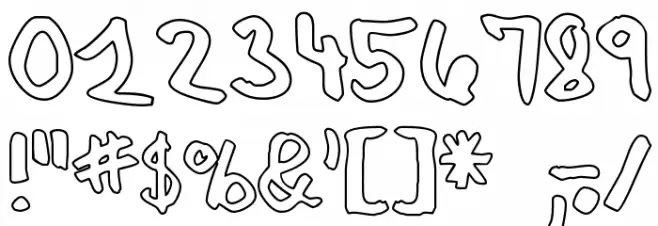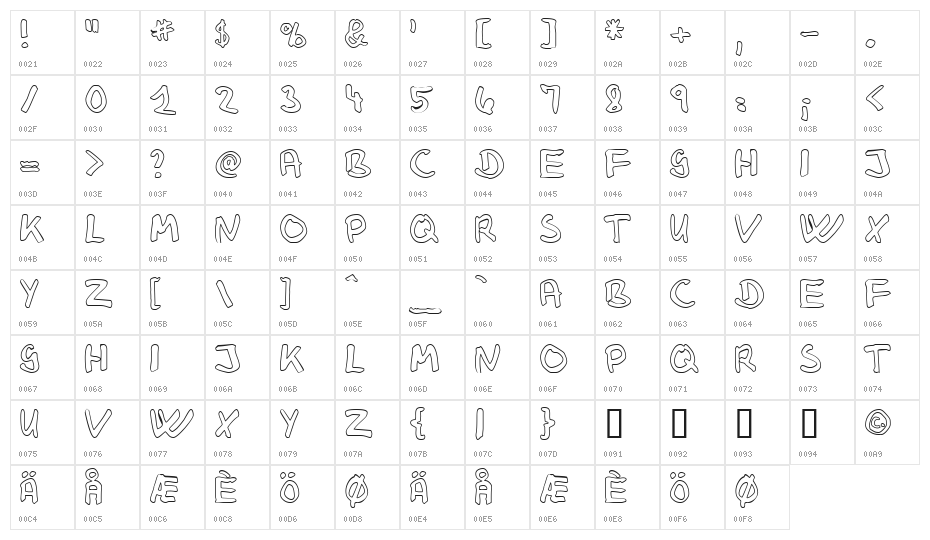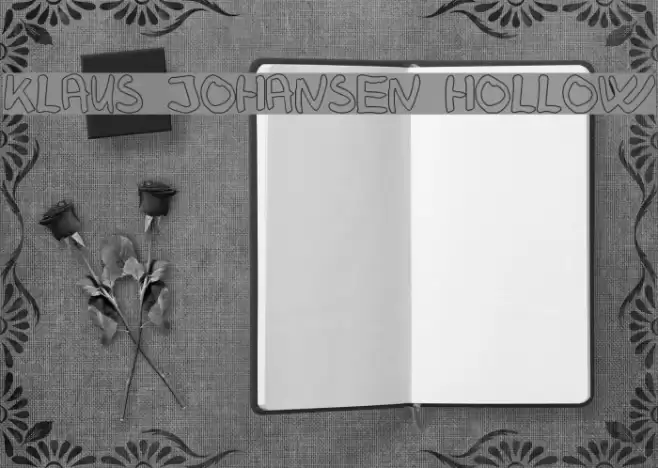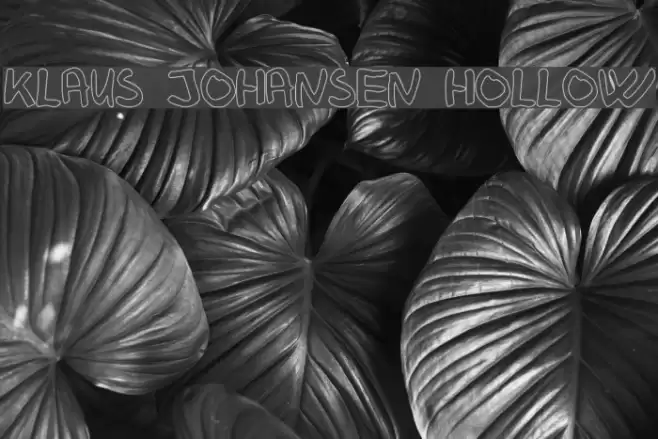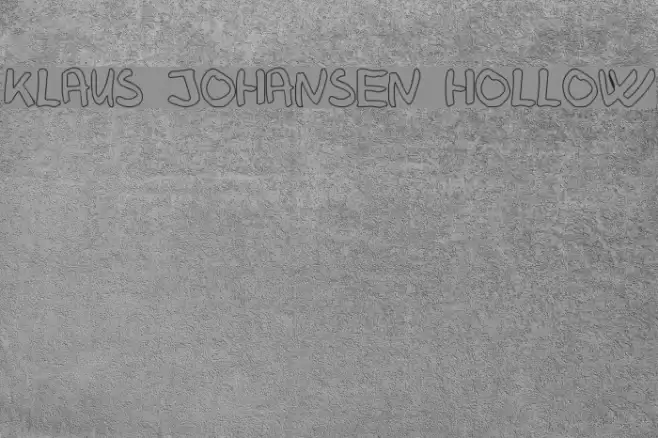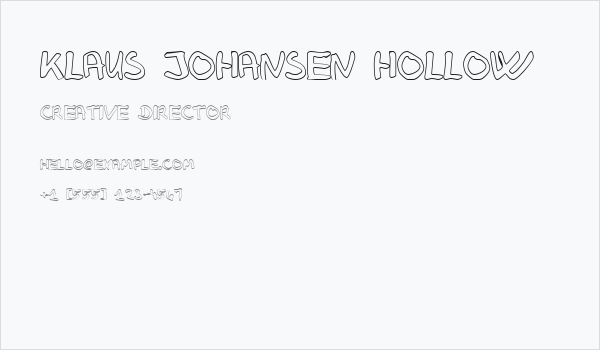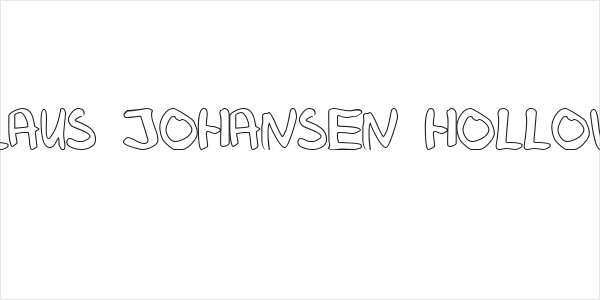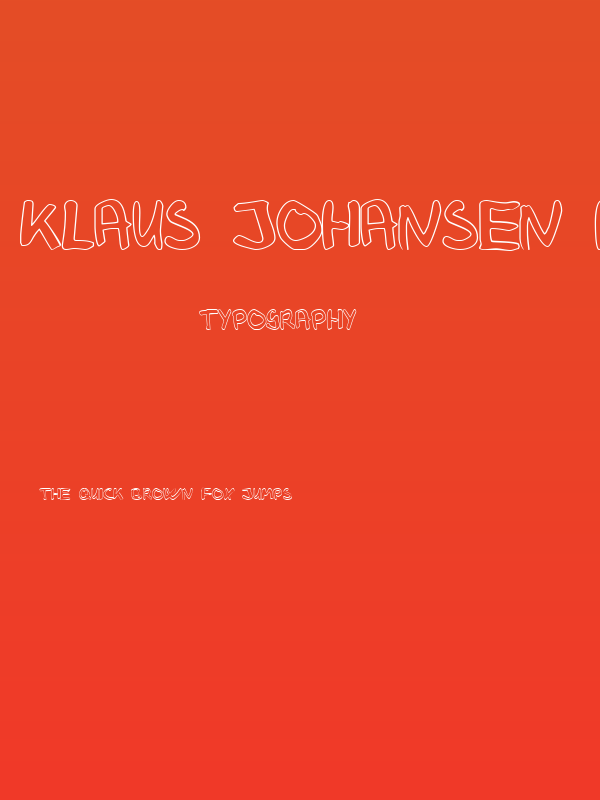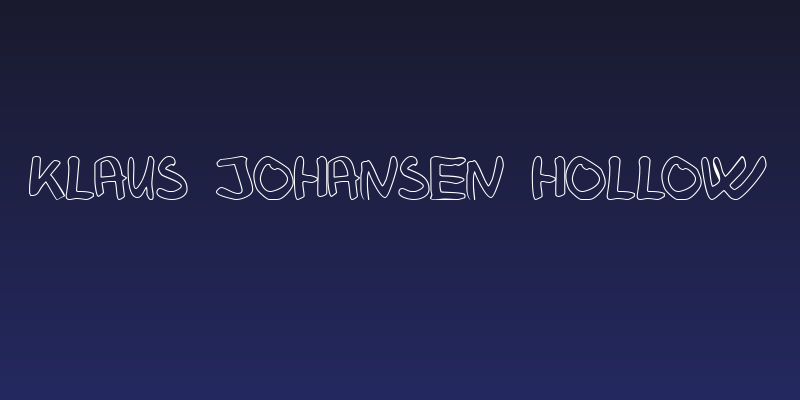
Klaus Johansen hollow Font
Klaus Johansen hollow Description
This font features a playful and whimsical design with hollow, outlined characters that give it a unique and eye-catching appearance. The letters are bold and rounded, with a consistent thickness throughout, creating a sense of uniformity despite their playful nature. The hollow design allows for creative use of color and background, making it versatile for various design projects. The font includes both uppercase and lowercase letters, numbers, and a range of special characters, ensuring comprehensive usability. Its distinctive style makes it ideal for projects that require a fun and informal touch.
| Proposed Projects | Ideal for children's books, playful branding, posters, and creative design projects. |